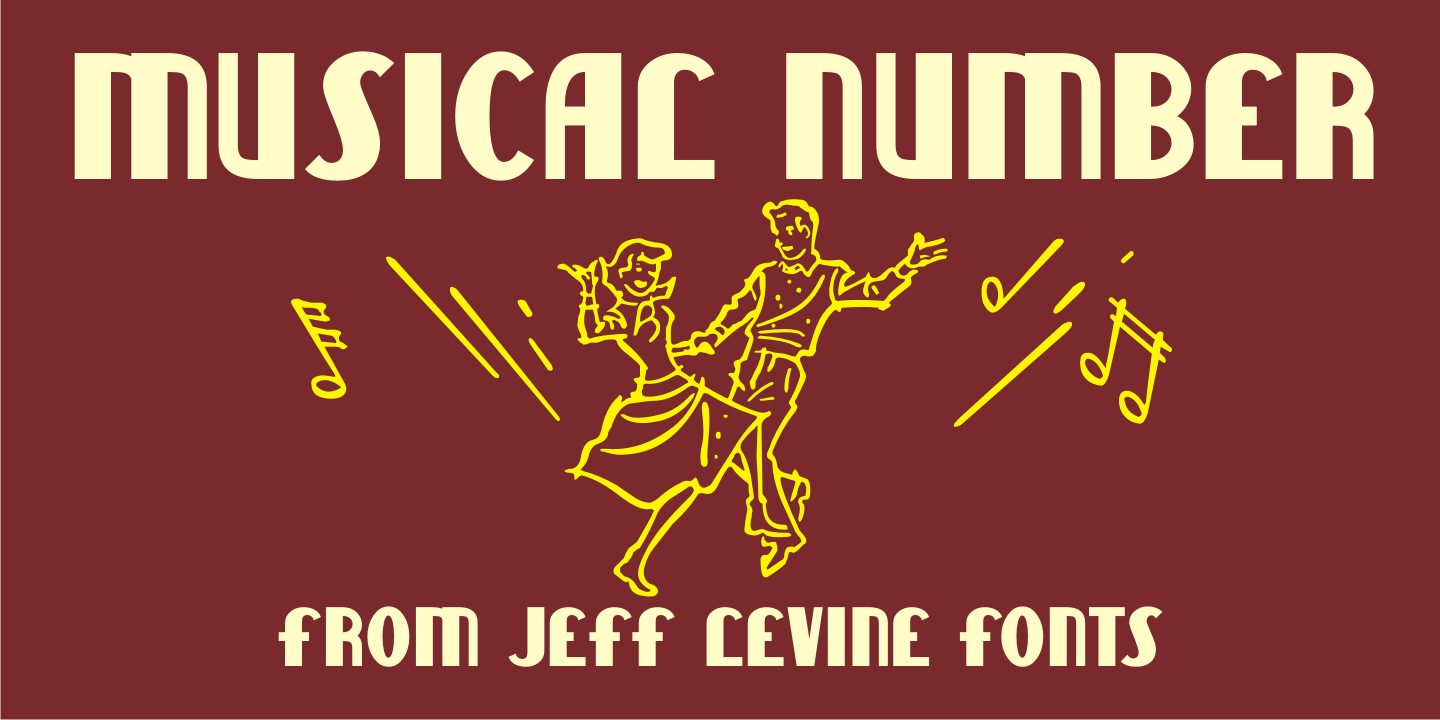
Musical Number
In the MGM musical 'Broadway Melody of 1940”, a new stage production has its gala opening at the fictitious Lafayette Theater on the Great White Way. The front of the theater is resplendent with classic neon signage, and the theater's name is in an interesting Art Deco design.
Musical Number JNL recreates this lettering in digital form.
Musical Number JNL Regular by Jeff Levine Fonts